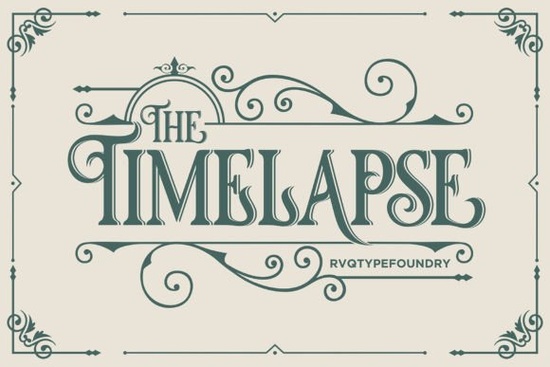
If you're working on a design that needs strong visual impact think logos, posters, or apparel graphics you’ve probably considered blackletter fonts. They bring drama, tradition, and boldness all at once. One standout option worth exploring is the Timelapse Font. It’s a thick, confident blackletter style that holds its own without overwhelming your layout.
Unlike some ornate gothic fonts that can feel cluttered, Timelapse balances weight with clarity. Its letterforms are solid and structured, making it surprisingly readable even at smaller sizes especially useful if you’re creating merch or signage. Plus, it’s PUA encoded, which means all the extra swashes, alternates, and decorative glyphs are easy to access through any design software that supports OpenType features (like Adobe Illustrator, Photoshop, or even free tools like Canva Pro).
Why choose a blackletter font like Timelapse?
Blackletter fonts have deep historical roots, originally used in medieval manuscripts and early printed books. Today, they’re popular in modern contexts where you want to convey strength, heritage, or edge think tattoo shops, craft breweries, metal bands, or vintage-inspired branding. Timelapse leans into that legacy but with a cleaner, more contemporary execution.
Compared to other options in the category like the sharper, more angular Iron Gothic Timelapse feels slightly more rounded and approachable while still maintaining that unmistakable gothic presence. That makes it versatile: equally at home on a concert flyer as it is on a luxury soap label.
Who’s this font really for?
- Print-on-demand sellers: Use Timelapse for t-shirt quotes, mug designs, or wall art that needs instant attitude.
- Small business owners: Perfect for logos, packaging, or social media graphics that demand attention without looking chaotic.
- Crafters and hobbyists: Great for vinyl cutting, embroidery digitizing, or hand-lettering inspiration.
- Graphic designers: A reliable go-to when clients ask for “something old-school but not too fussy.”
Because it’s so bold, you don’t need to pair it with much. Often, a simple sans-serif for body text is enough to create contrast and hierarchy. And since all the stylistic alternates are built right in, you can customize words without switching fonts or layering effects.
How to make the most of its special characters
The PUA encoding is a big plus here. Instead of hunting through symbol menus or installing multiple font files, you can access swashes and ligatures directly from your glyph panel. For example:
Realistic limitations to keep in mind
While Timelapse works well for headlines and short phrases, it’s not ideal for long paragraphs. Like most blackletter styles, extended reading can become tiring. Also, because of its thickness, avoid using it on very small items (like tiny stickers or fine jewelry engraving) where details might blur together.
And while it pairs nicely with minimalist layouts, be cautious about combining it with other decorative fonts. One strong personality per design is usually enough.
If you like the vibe of Timelapse but want something even more rugged, you might also browse similar options like the aforementioned Timelapse collection or explore how it stacks up against classic gothic revivals.
Quick checklist before using Timelapse Font
With its bold presence and user-friendly extras, Timelapse offers both aesthetic punch and practical flexibility exactly what creators need when deadlines loom and inspiration runs thin.